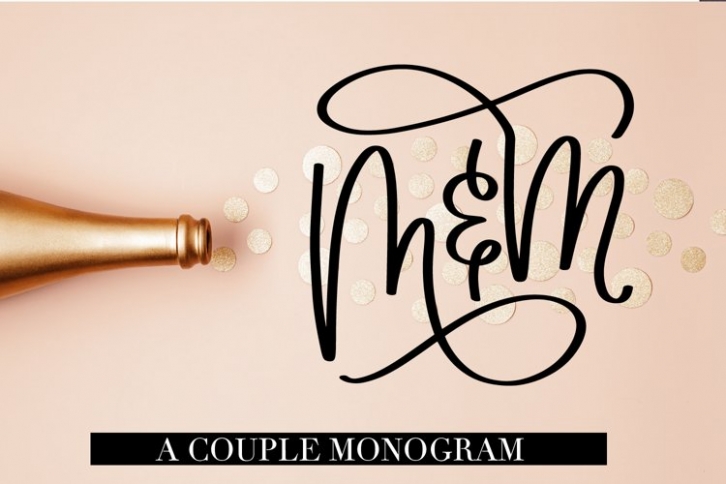
Couple Monogram With Ampersand, Perfect For Weddings! is a great font that was designed by plusstore. Imagine the amount of combinations you can create using this font! The archive is 14.84 MB and it was released on October 30, 2021. Couple Monogram With Ampersand, Perfect For Weddings! looks beautiful on wedding invitations, greeting cards, logos, posters, labels, t-shirt designs, logos, business cards and is perfect for use in ink or watercolor works, fashion, magazines, packaging and food menus, children's books and more!